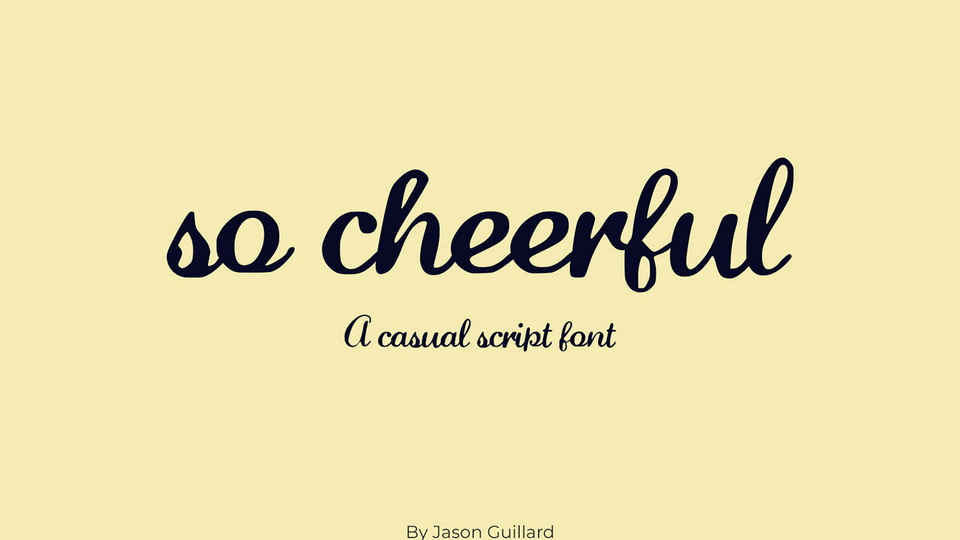
Download So Cheerful font, a script typeface with a casual feel. With its modern and minimal look, So Cheerful font brings a laid-back and clean style to websites, modern logos, branding identity, social media quotes, wedding stationery, and whatever you can think up!
Designer: Jason Guillard